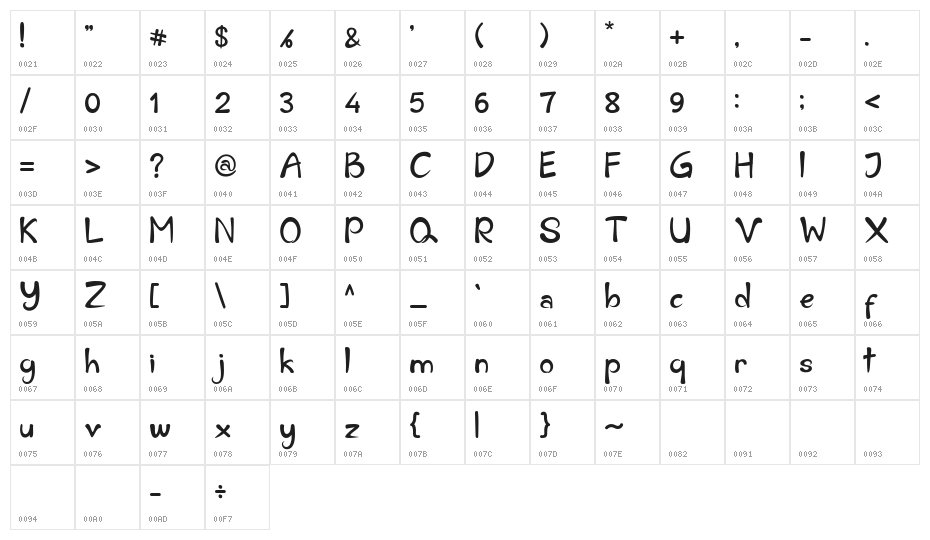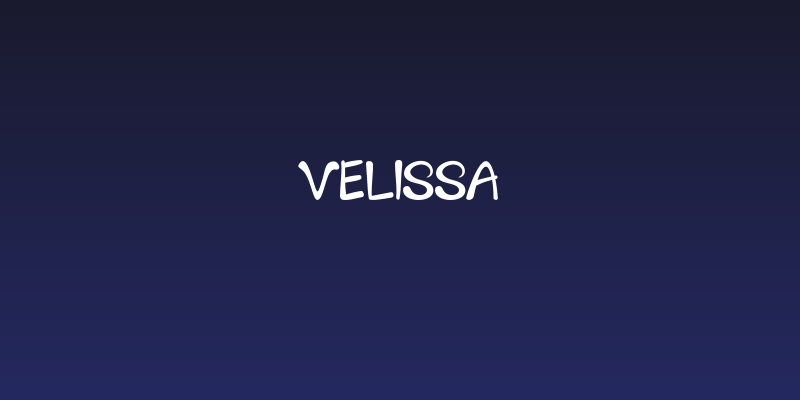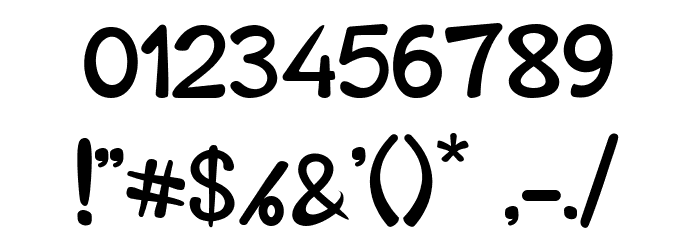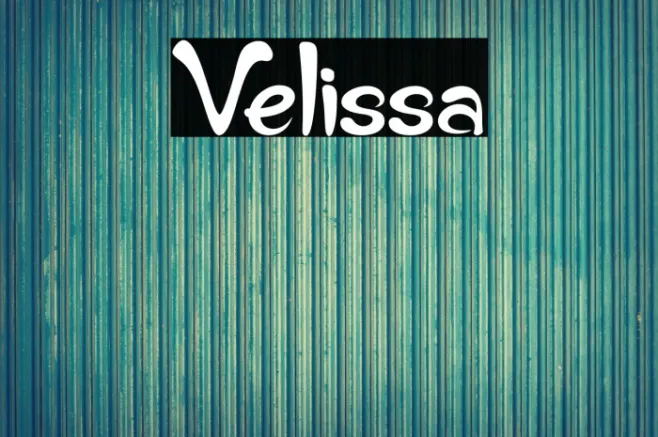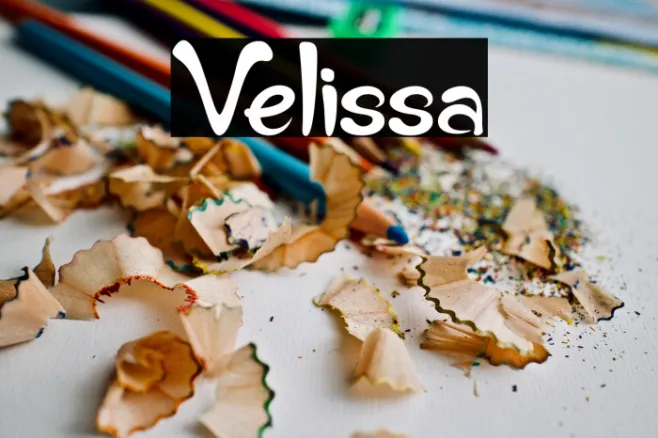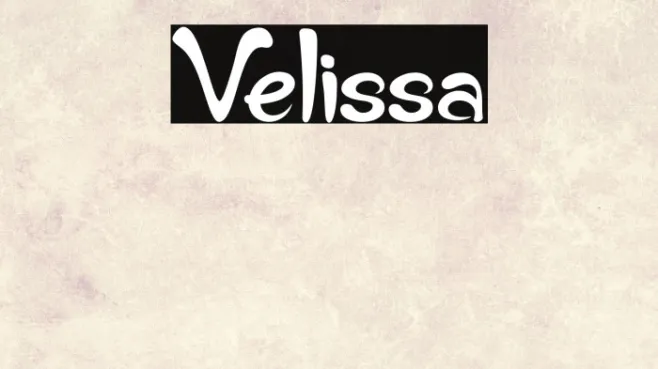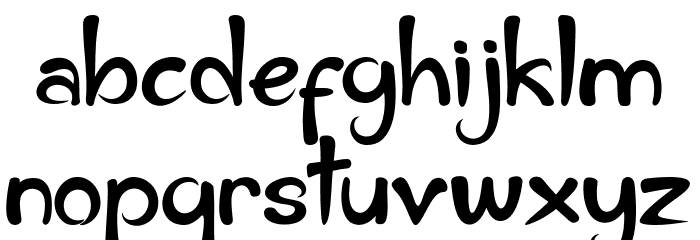
Velissa Font
Velissa Description
This font exhibits a playful and whimsical style, characterized by its rounded and slightly irregular letterforms. The strokes are bold and consistent, giving it a friendly and approachable appearance. The uppercase letters are tall and slightly narrow, while the lowercase letters maintain a consistent height, adding to the font's readability. The numerals are clear and distinct, matching the overall style of the alphabet. Special characters are well-integrated, maintaining the playful aesthetic. The font's design is suitable for projects that require a touch of fun and creativity.